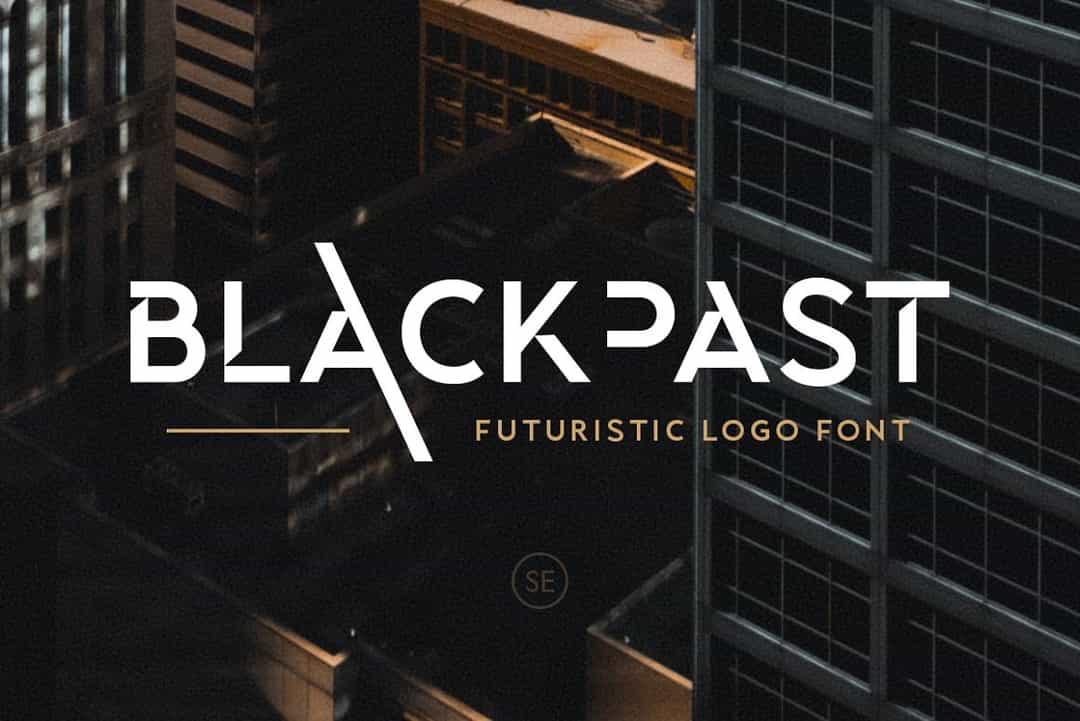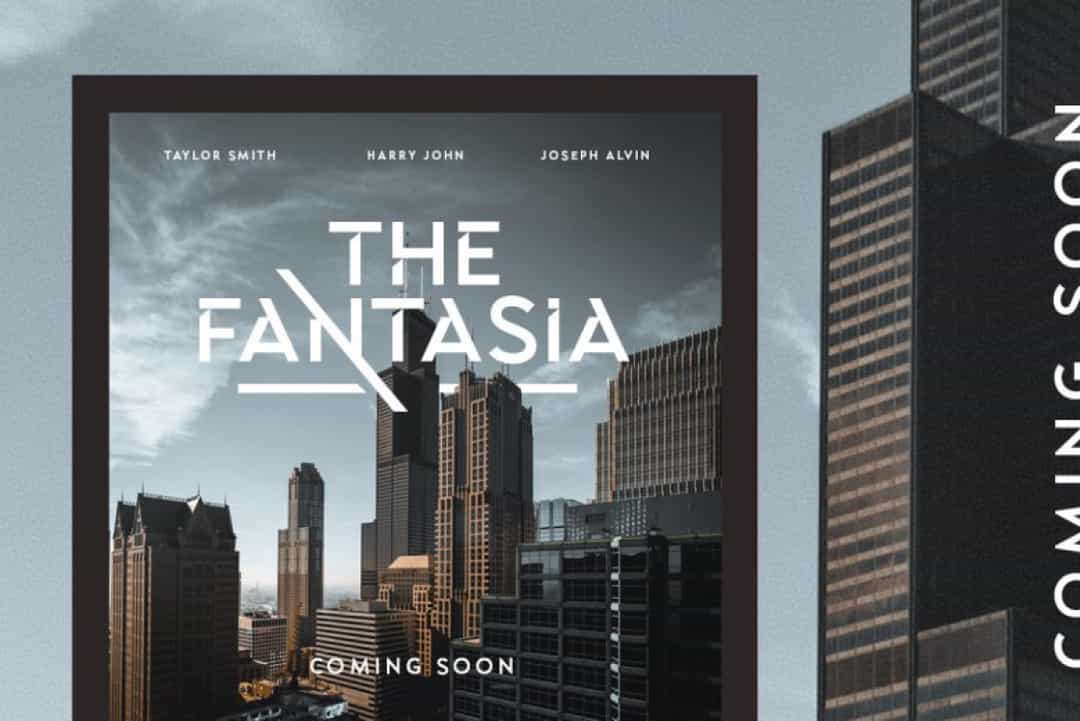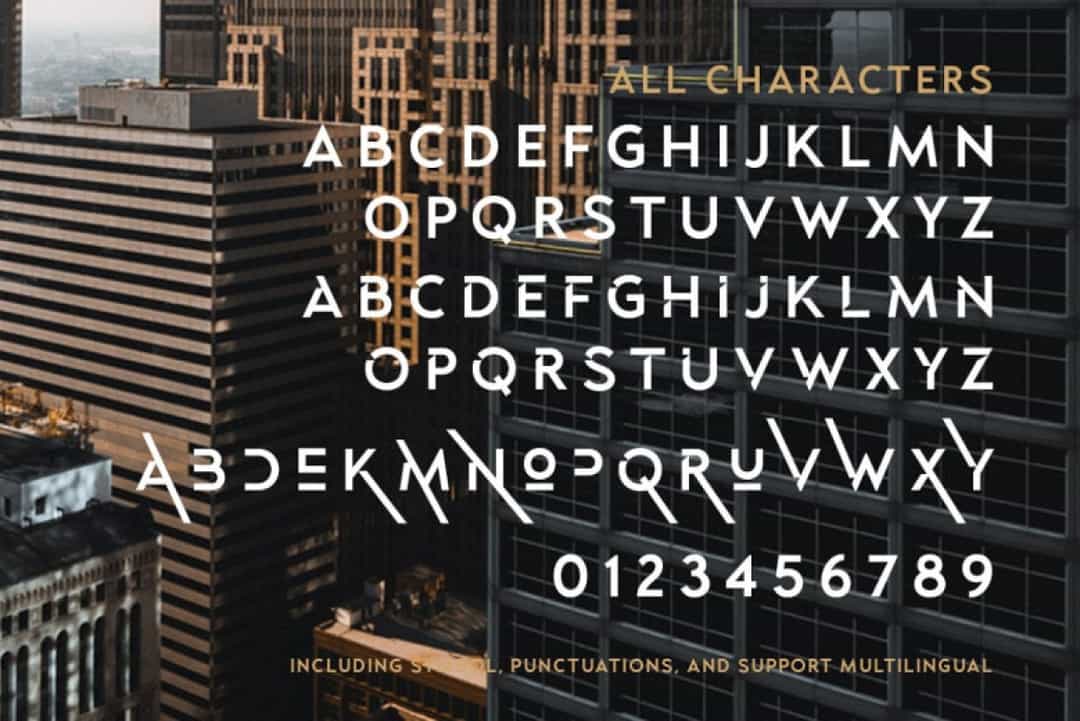
Blackpast Sans Serif Font is an exciting logo font with alternative font options! Blackpast features an eye-catching lowercase letterform to give your designs an eye-catching modern aesthetic and futuristic vibe. Ideal for logotypes.